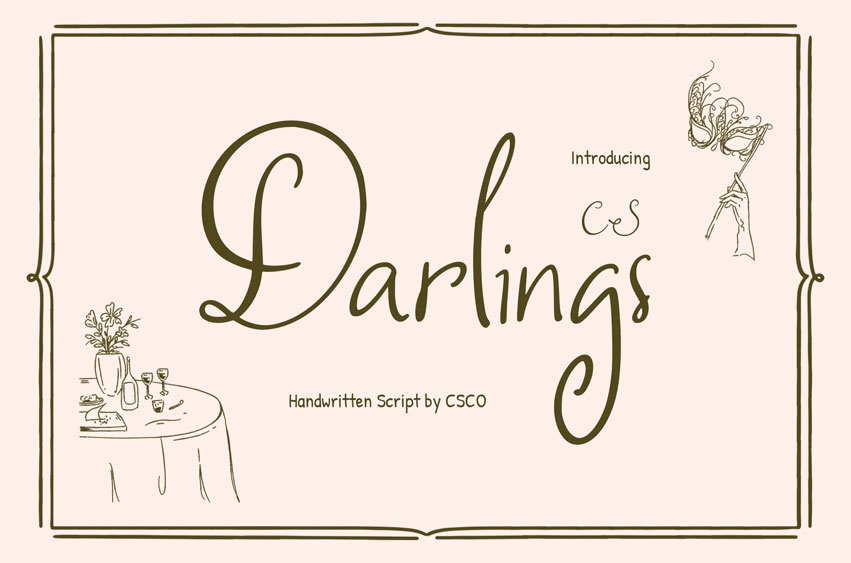
CS Darlings Font
CS Darlings Font Graceful Flow with Whimsical Style. This is a handwritten script font that captures beauty through movement and form. Blending the elegance of script typography with the playful essence of whimsical design, it brings a sense of magic and softness to every word.
Fluid Strokes for Romantic Expression. Each letter flows gracefully with smooth curves and delicate connections, creating a handwritten feel that radiates warmth and intimacy. This natural rhythm gives this font a romantic and inviting personality, perfect for designs that want to express emotion and charm.
A Touch of Magic and Elegance. With its combination of fantasy-like whimsy and refined script detailing, this font evokes both sophistication and imagination. It’s ideal for projects that seek a magical yet elegant atmosphere, where typography enhances storytelling and sentiment.
Perfect for Wedding and Celebration Designs. Ideal for wedding designs, party invitations, elegant posters, or romantic branding, this font adds a personal, heartfelt touch. Its graceful forms and enchanting flow make it the perfect font to convey love, joy, and timeless beauty.